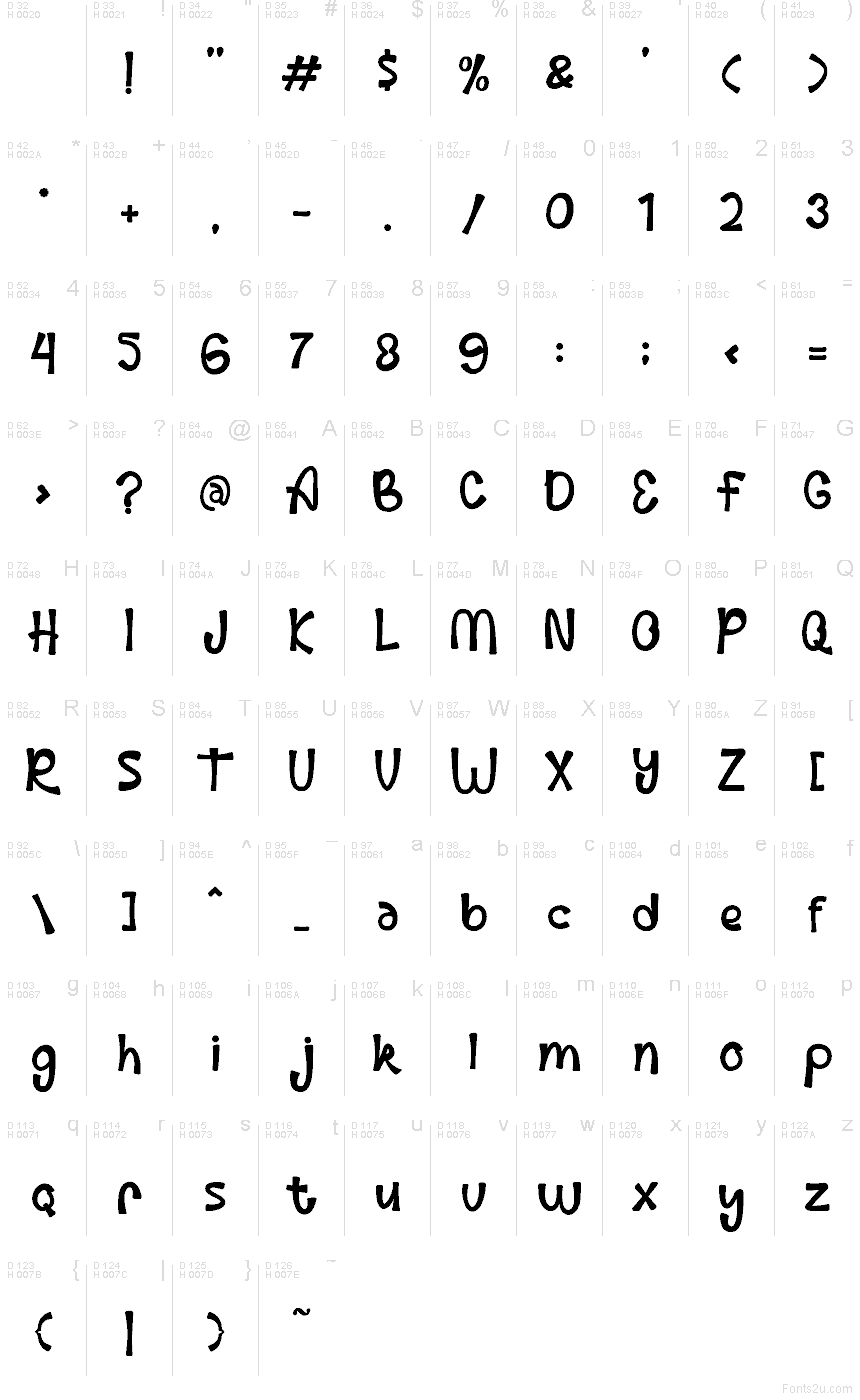
Palm Sunday
Palm Sunday font by Putracetol Studio is a free Easter script font with a loose hand-drawn rhythm and rounded, slightly irregular shapes. The letters keep a casual flow without looking rigid, which gives the design a friendly craft-paper feel rather than a polished script finish.
Palm Sunday works well for Easter cards, spring event posters, bakery labels, craft packaging, and holiday invitations where a handmade note feels appropriate. This free font also suits quotes, social media graphics, and decorative banners because its simple, rounded forms carry a seasonal theme without getting fussy.